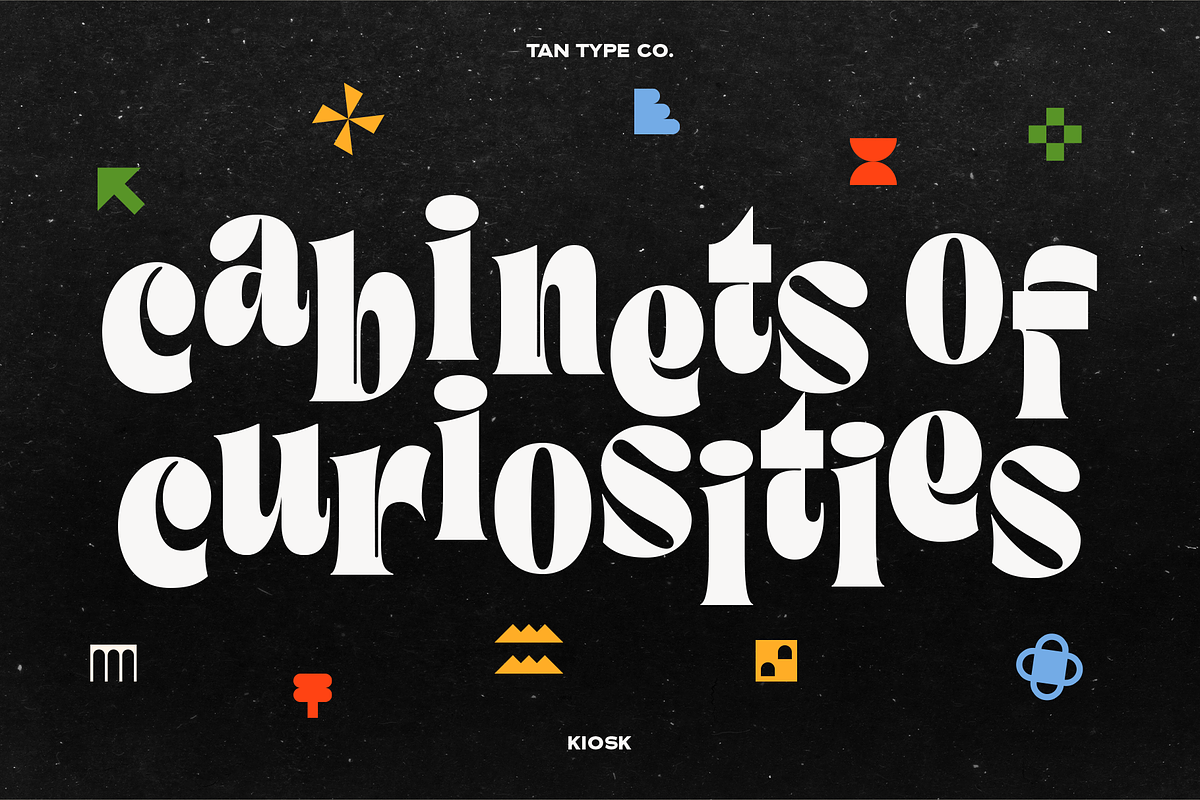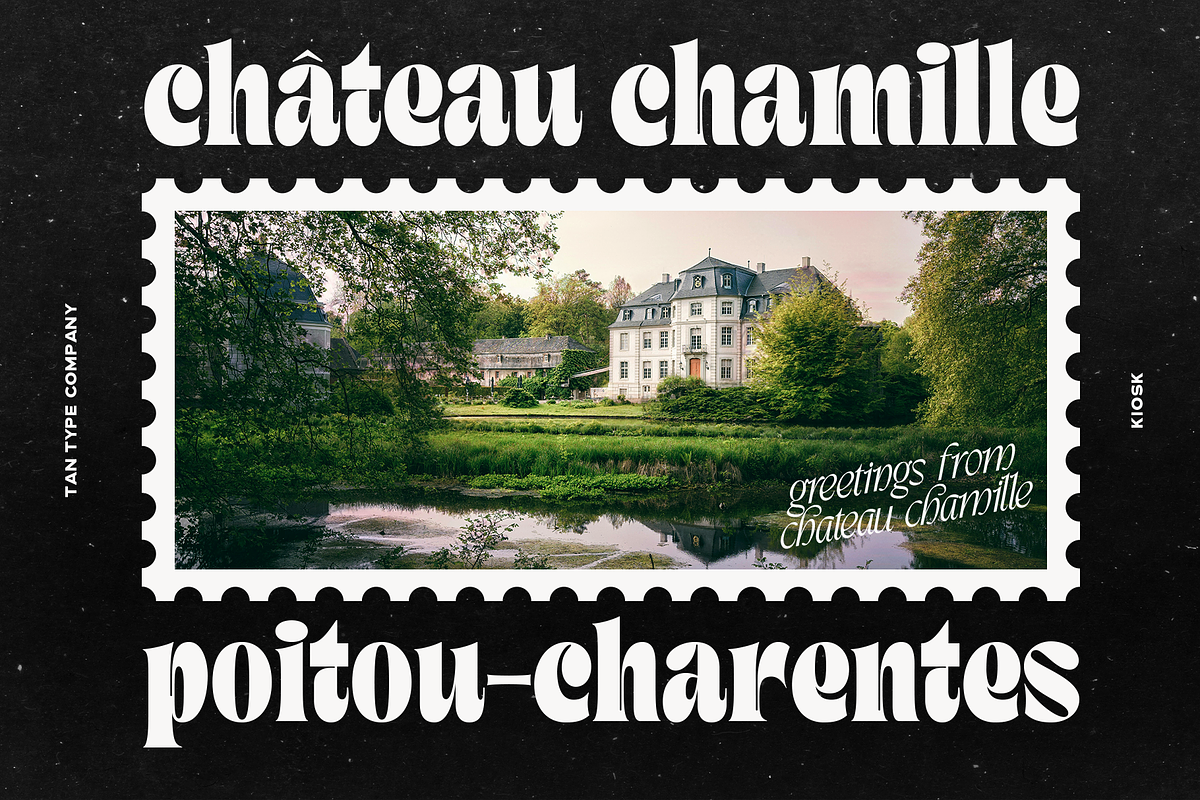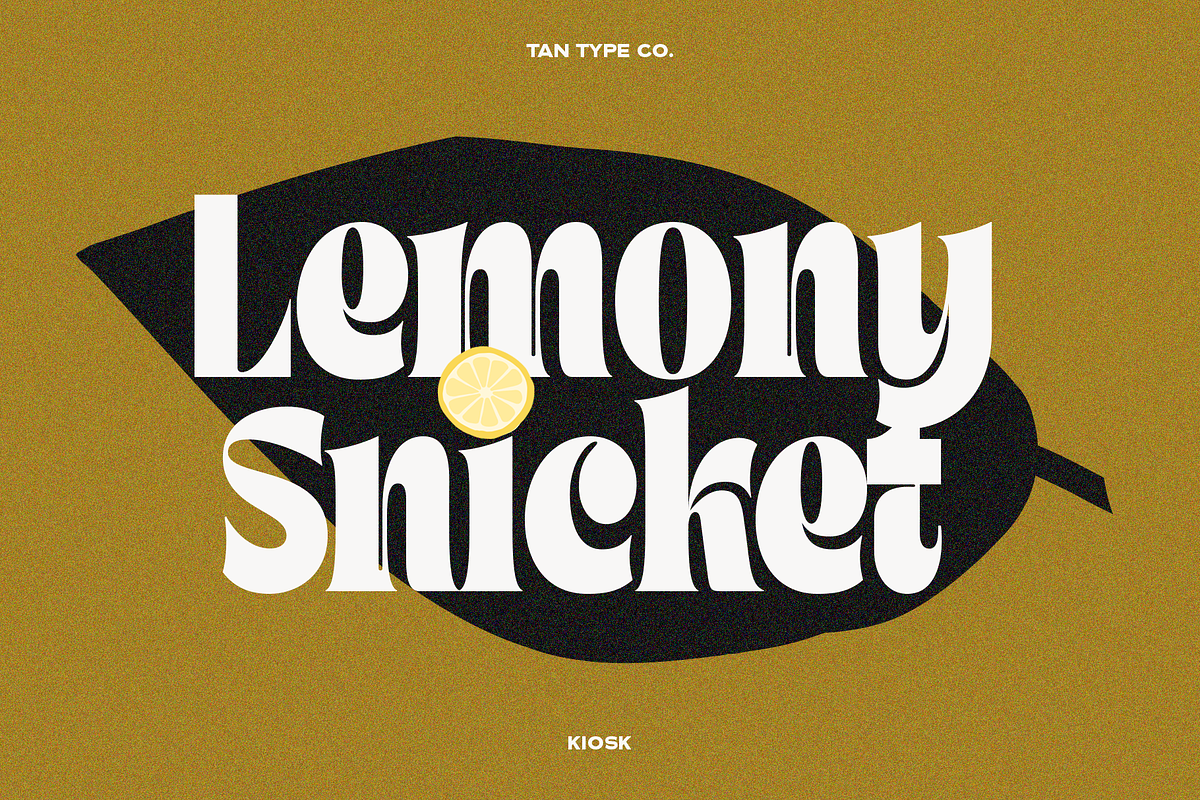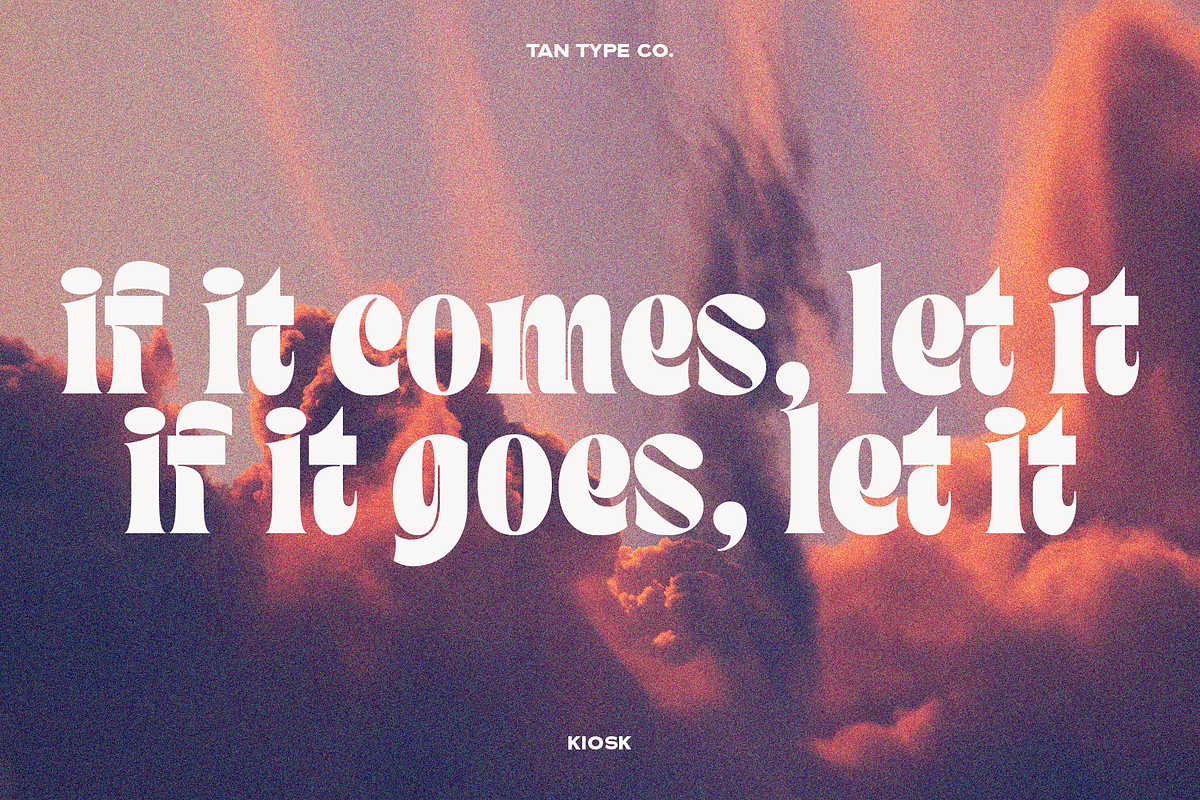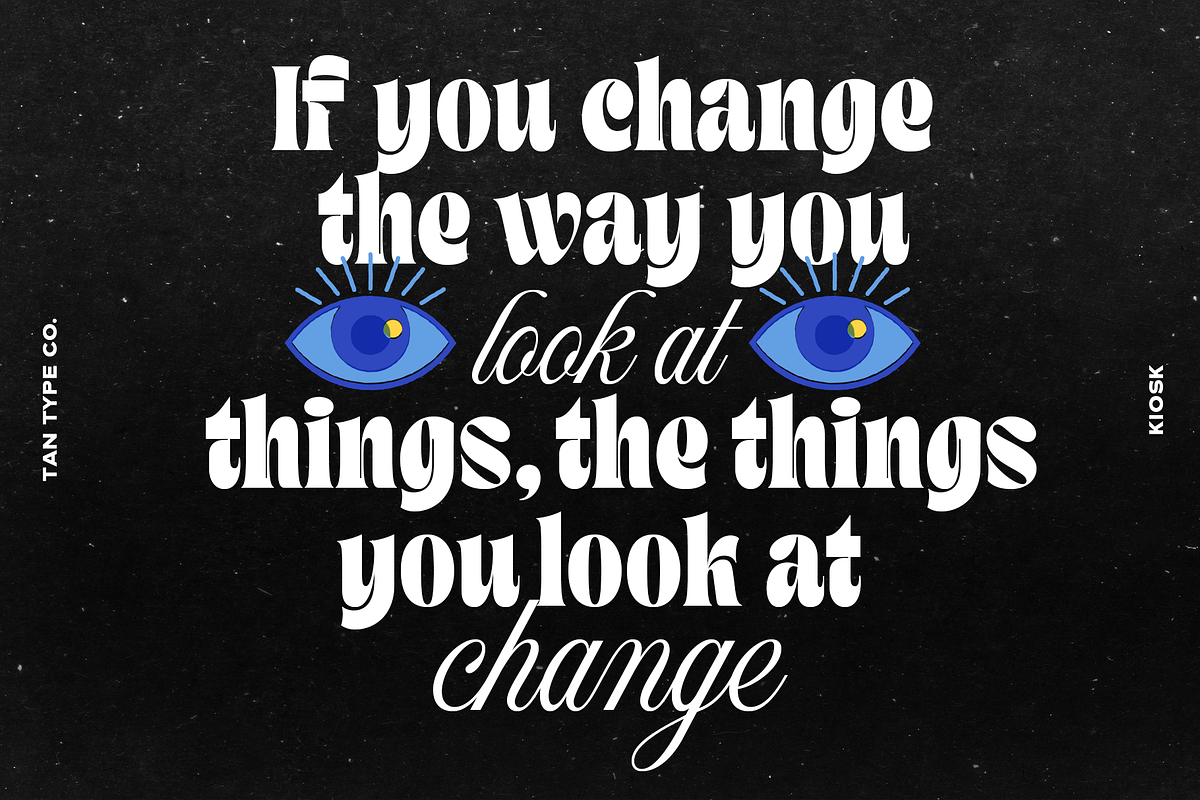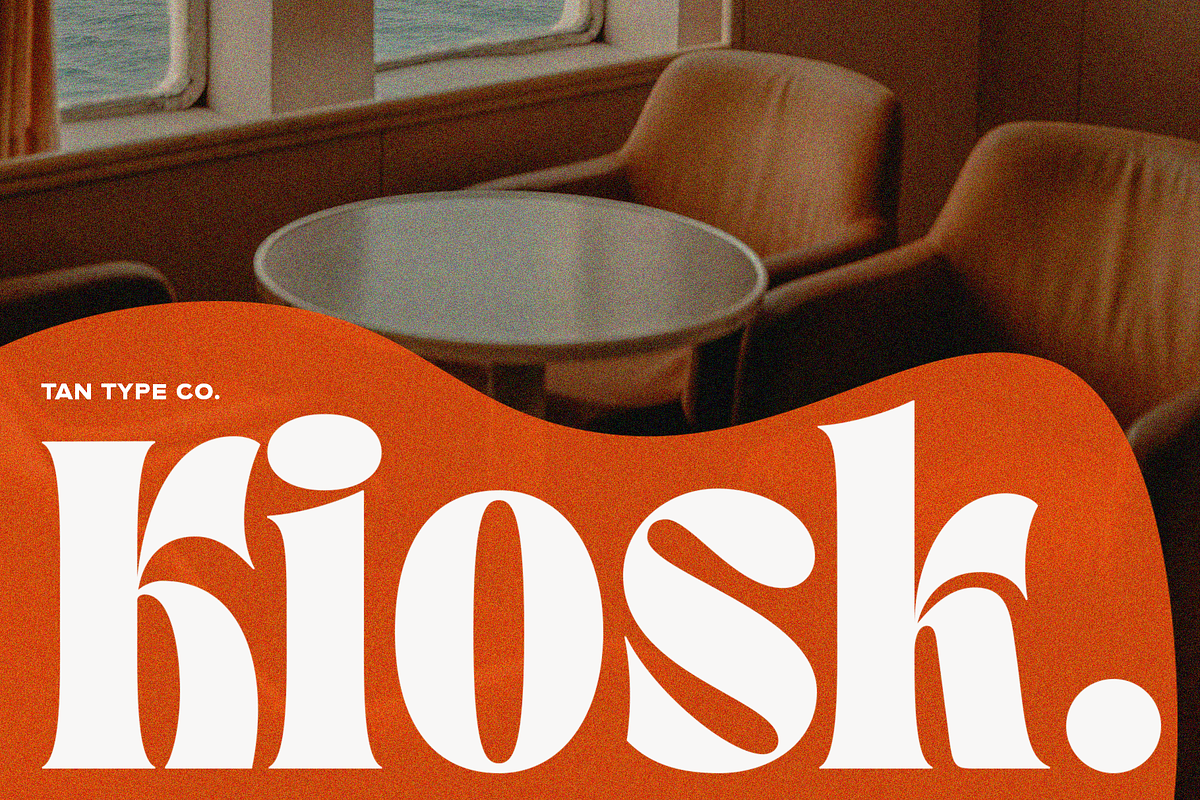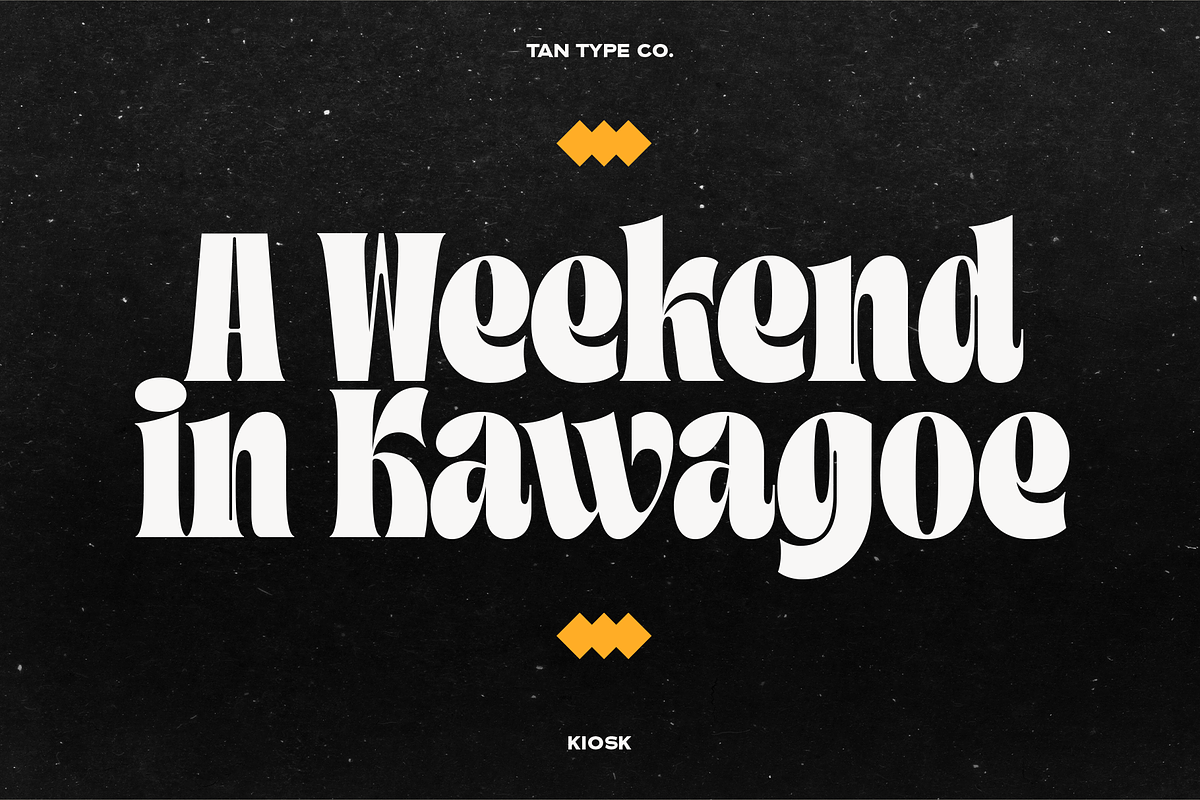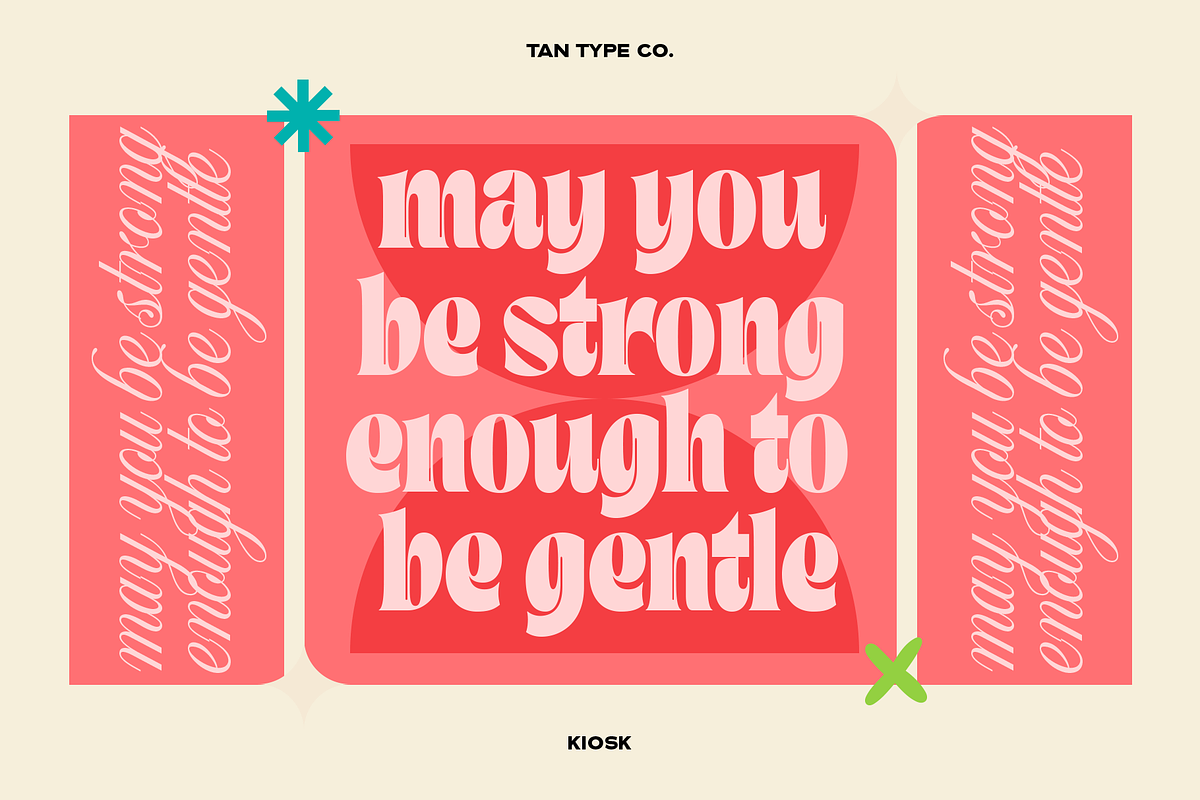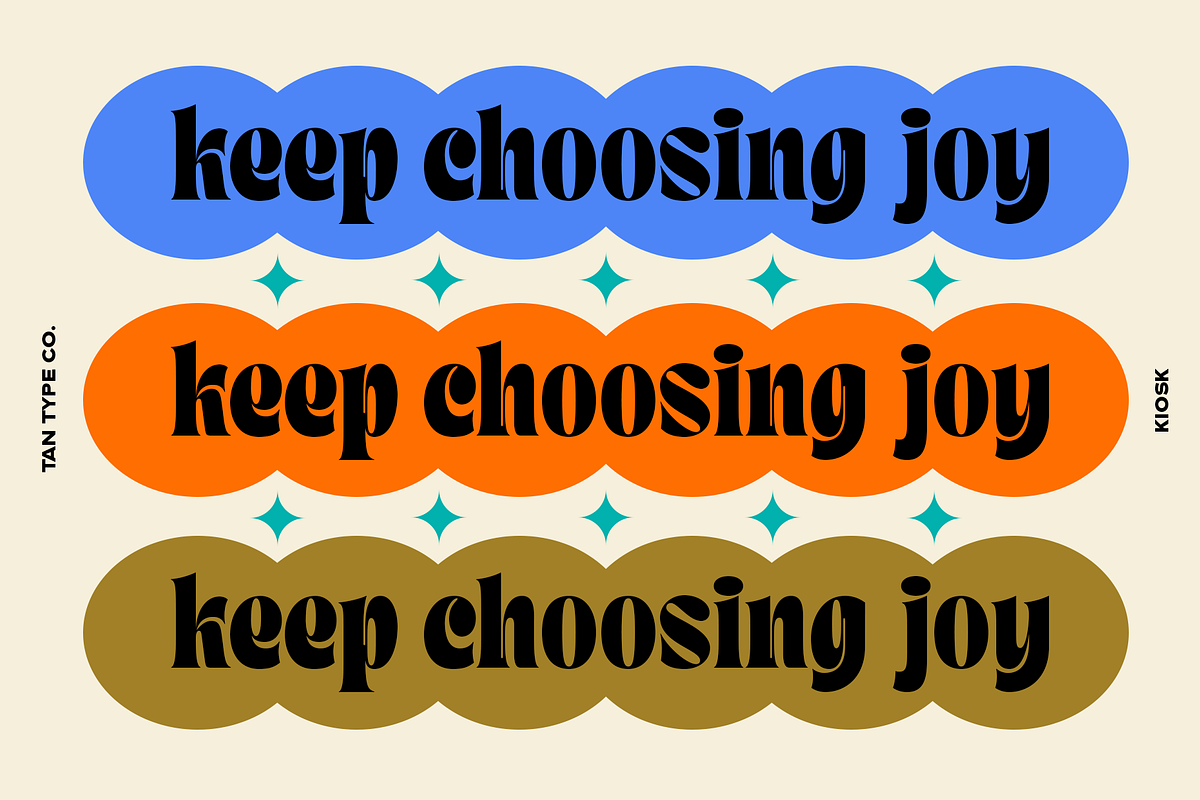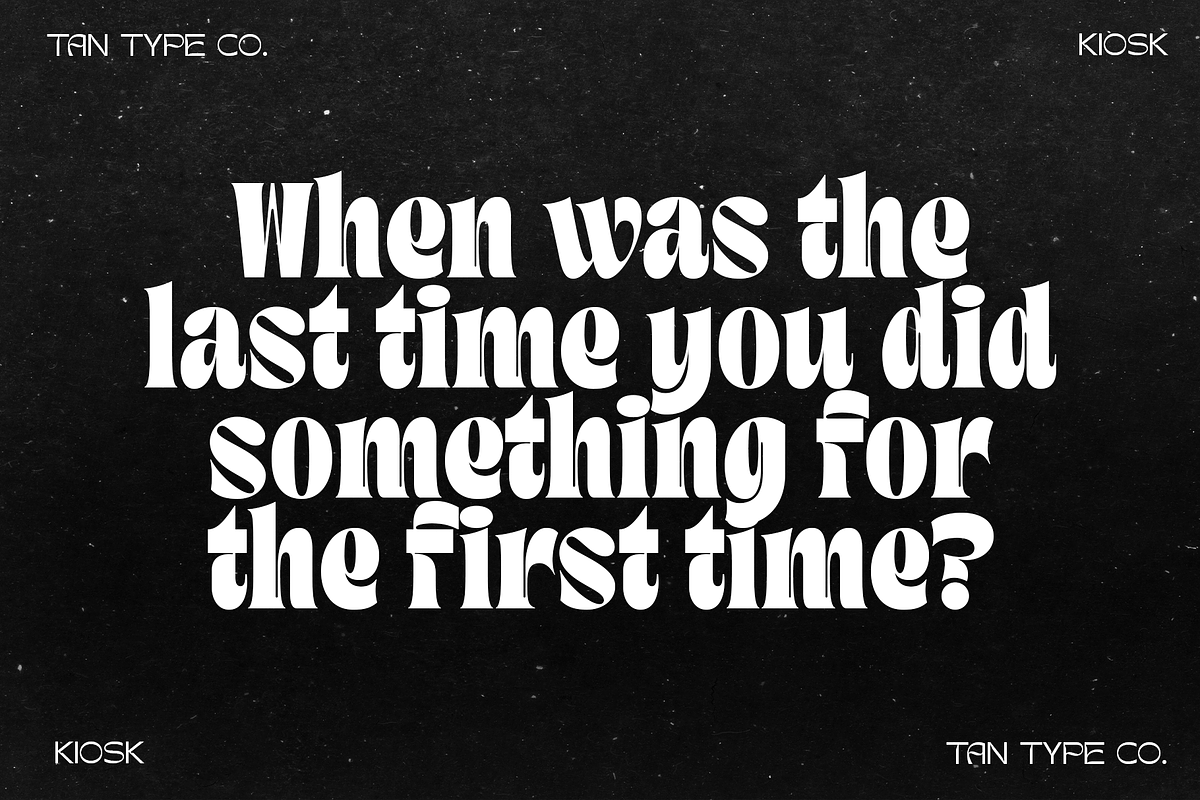
TAN - KIOSK
Tan Type Company presents KIOSK, a retro bold serif. A blend of vintage charm and modern flair. This typeface features strong, confident serifs that evoke a sense of nostalgia while remaining undeniably fresh. Ideal for eye-catching headlines, posters, and branding projects, it adds a touch of nostalgia that’s both stylish and fun. Whether you’re aiming for a retro aesthetic or just want to stand out, this font is your perfect companion.